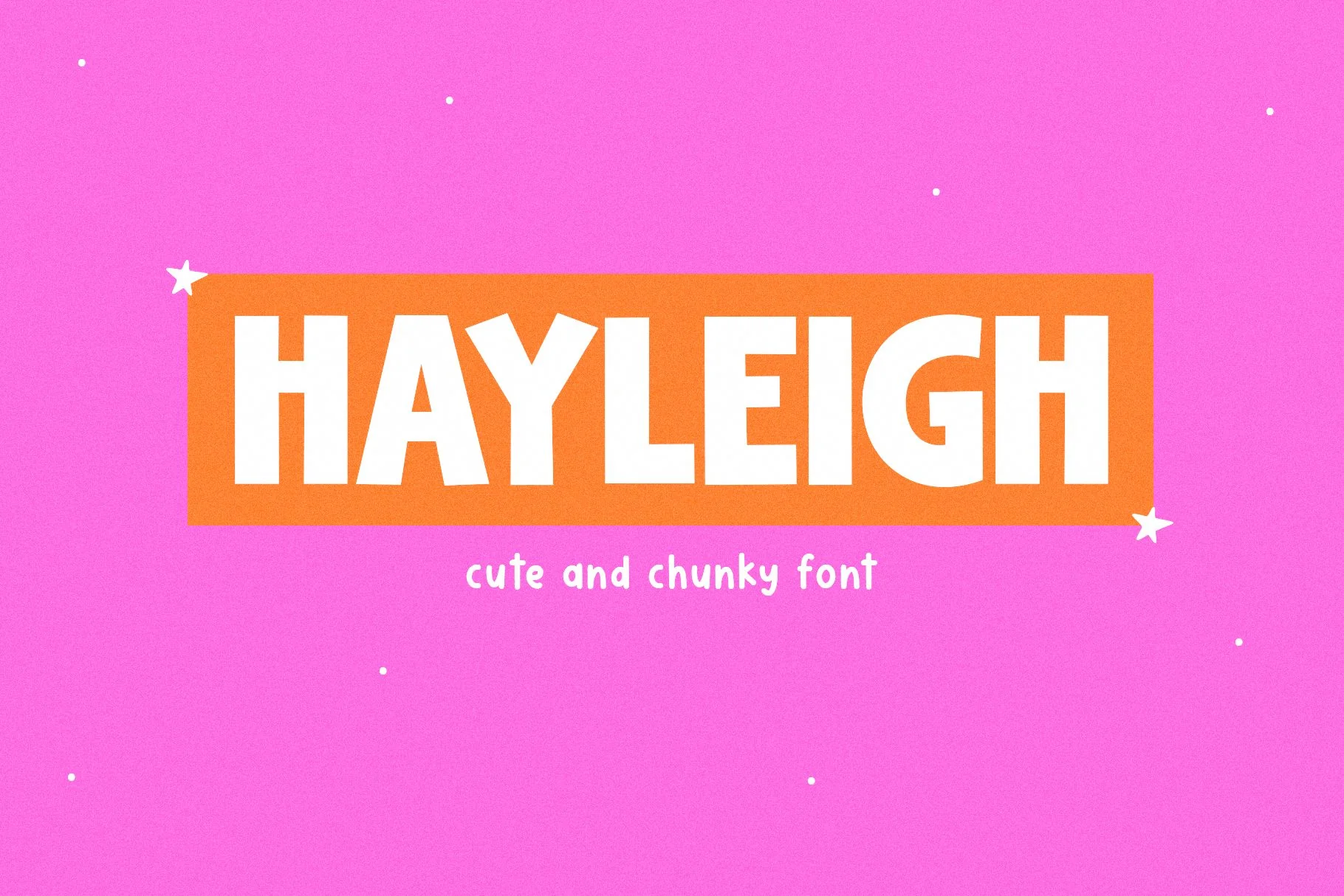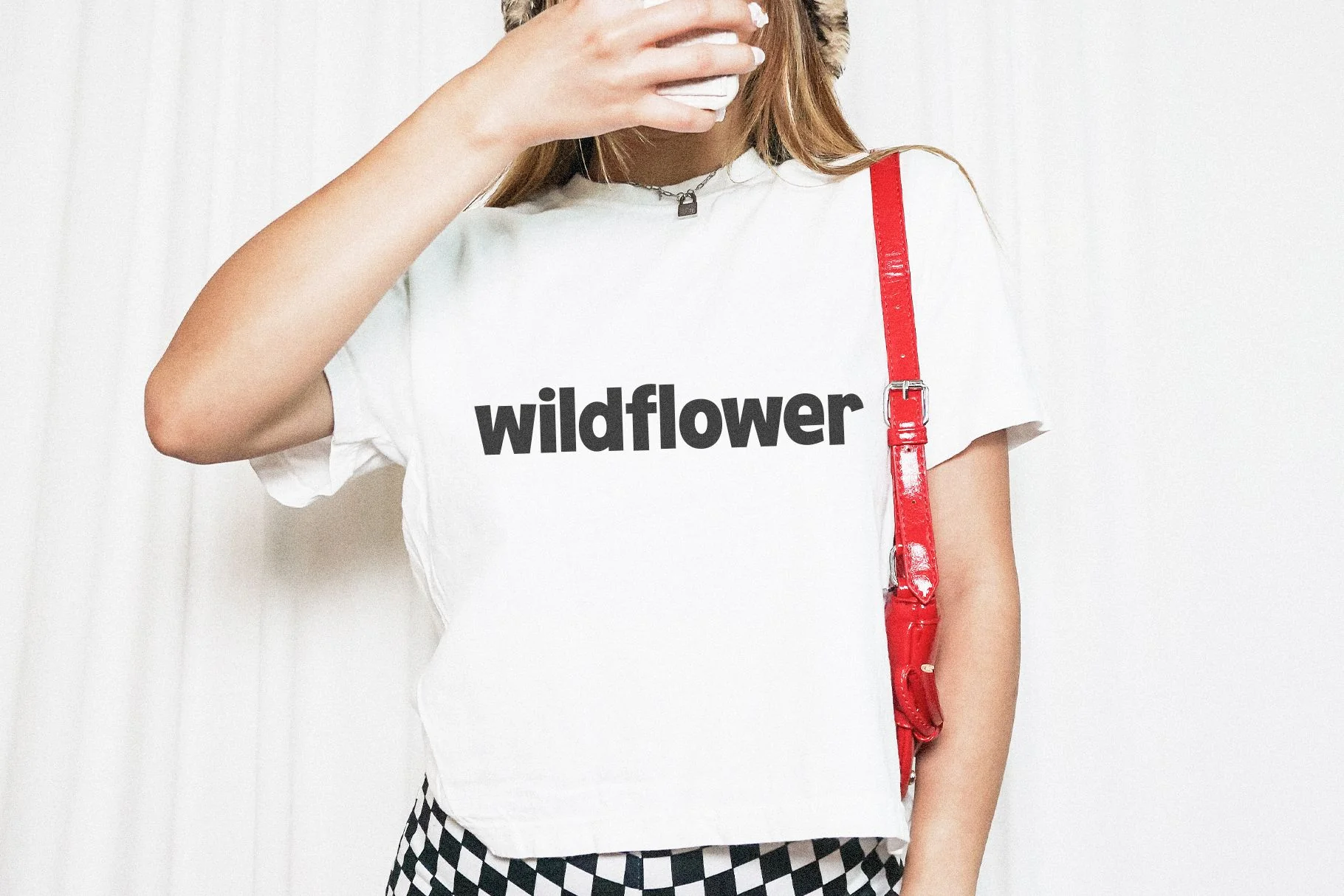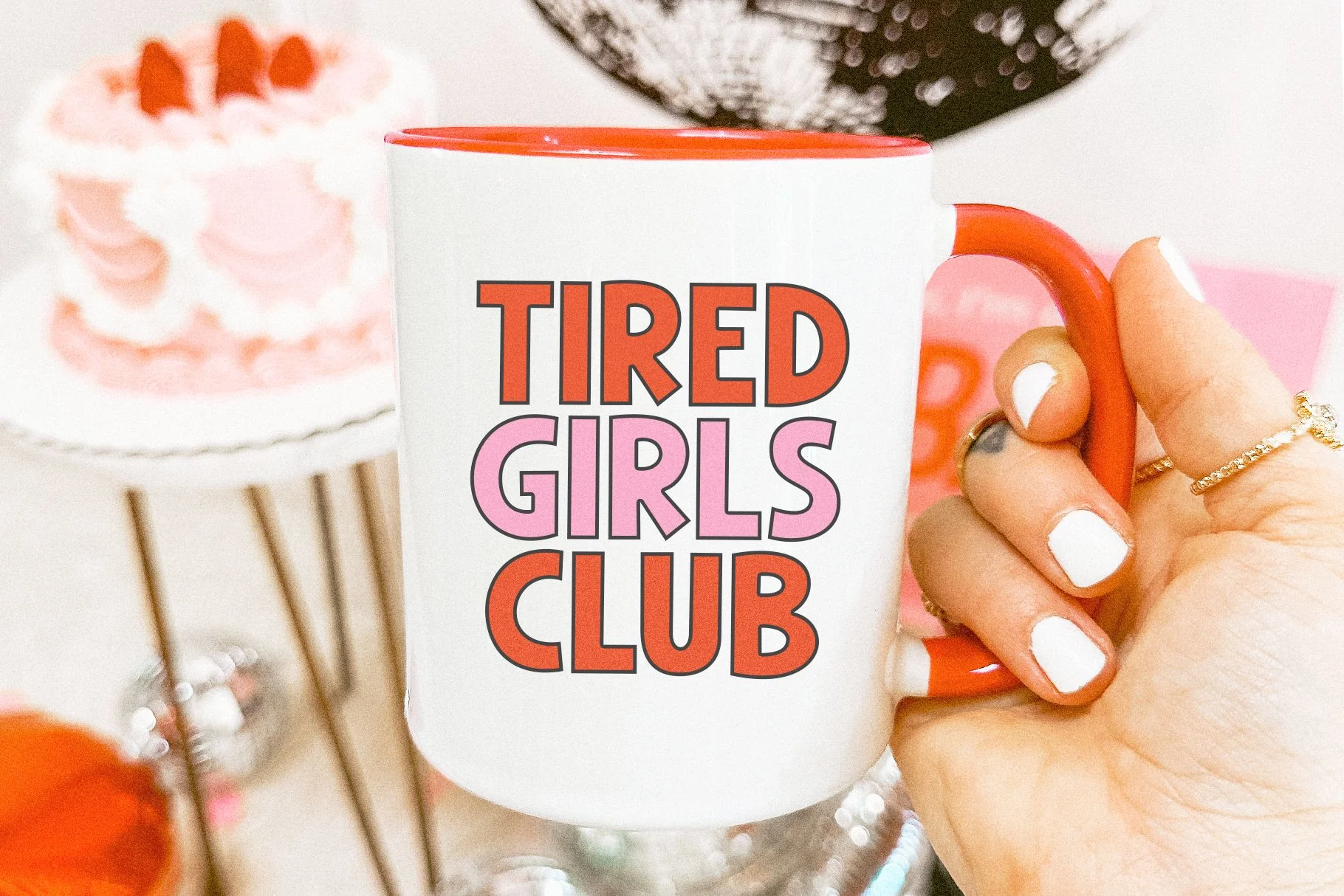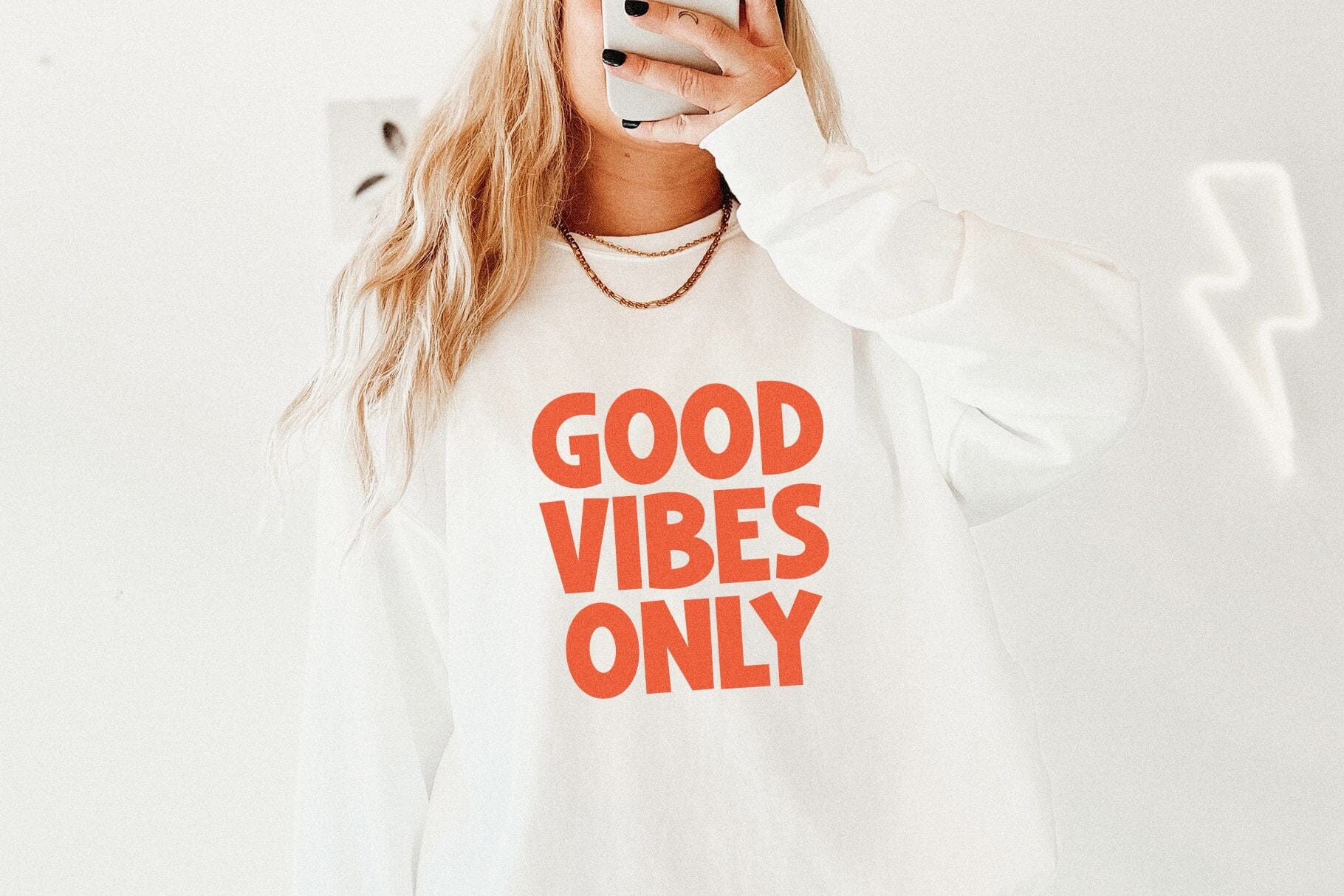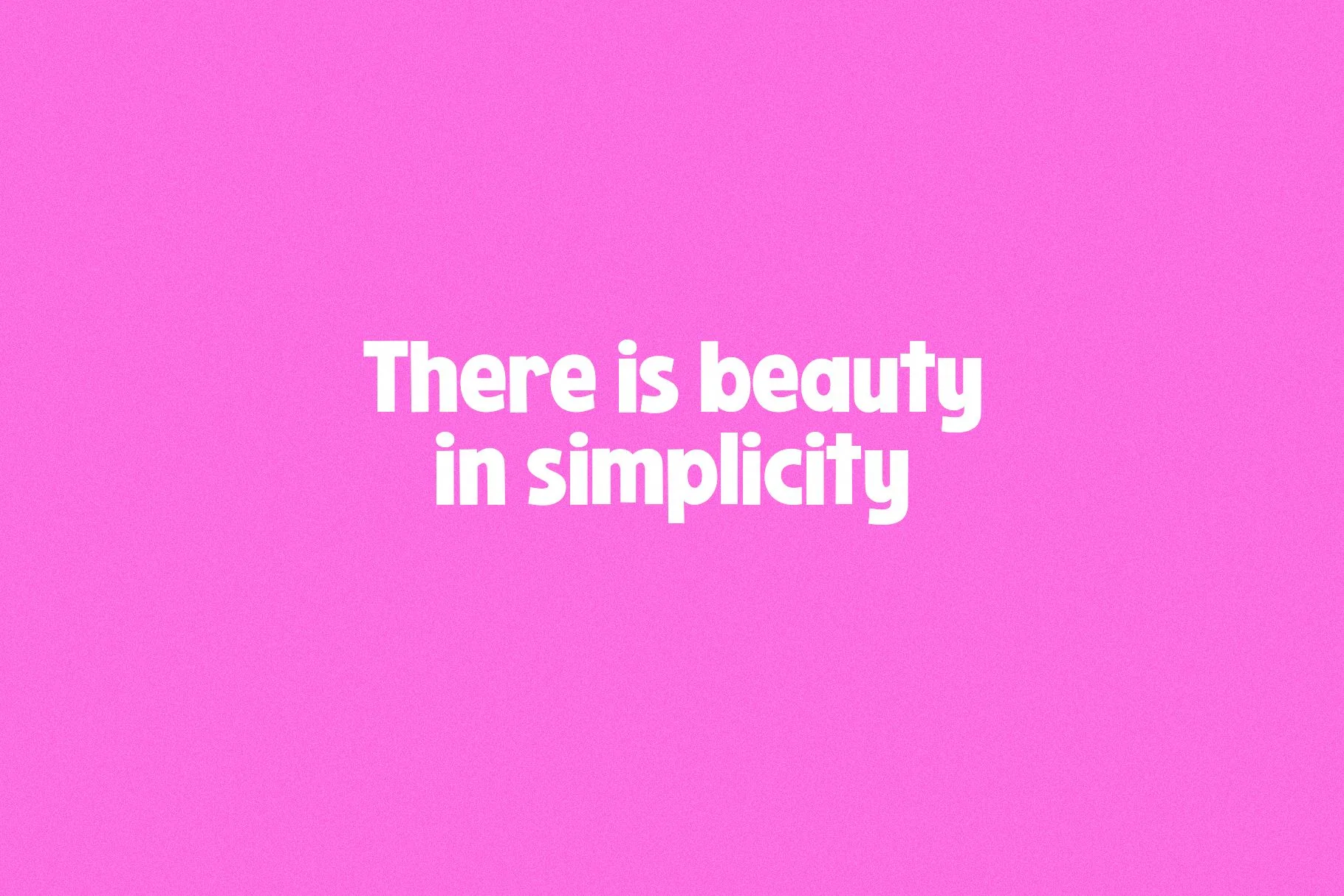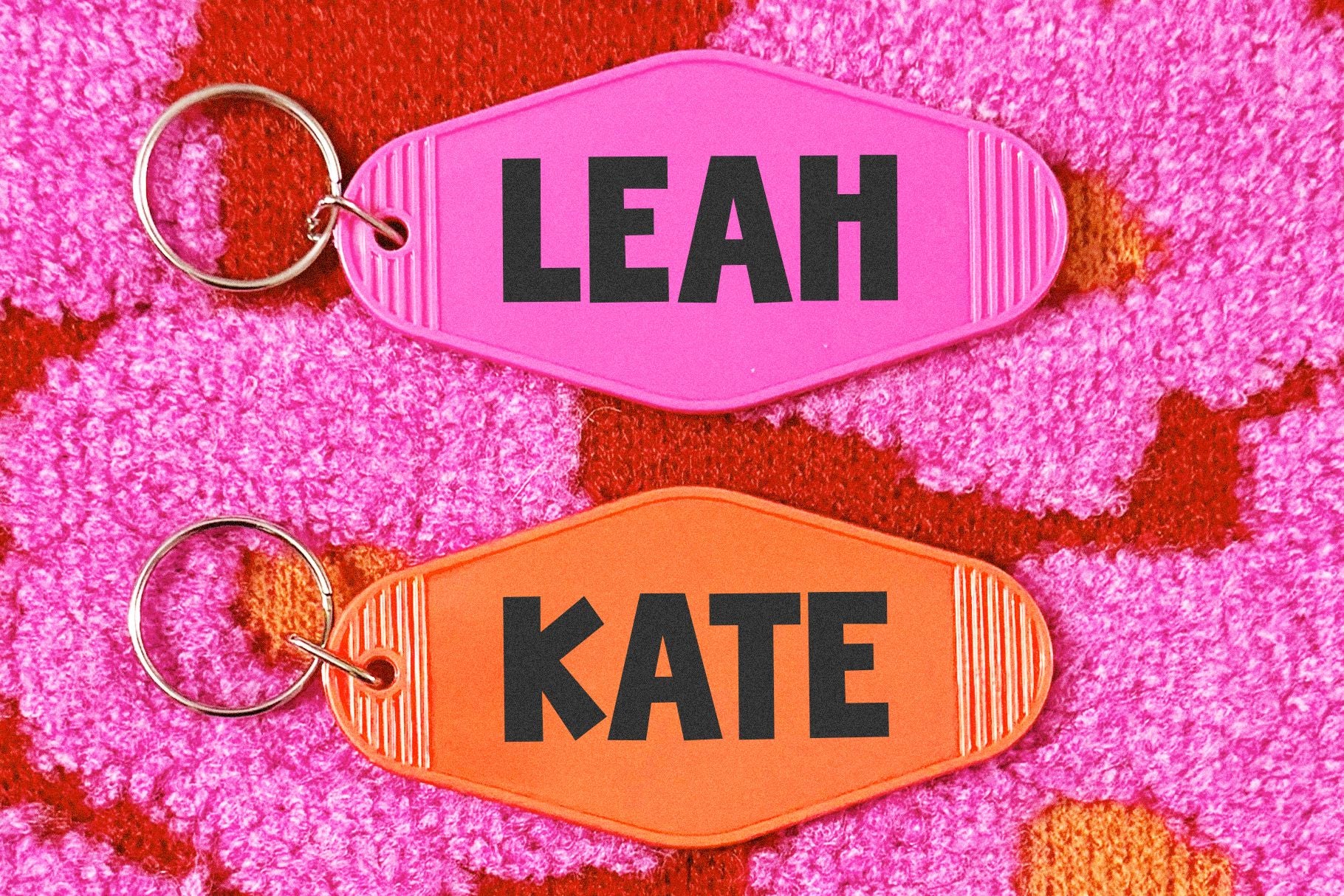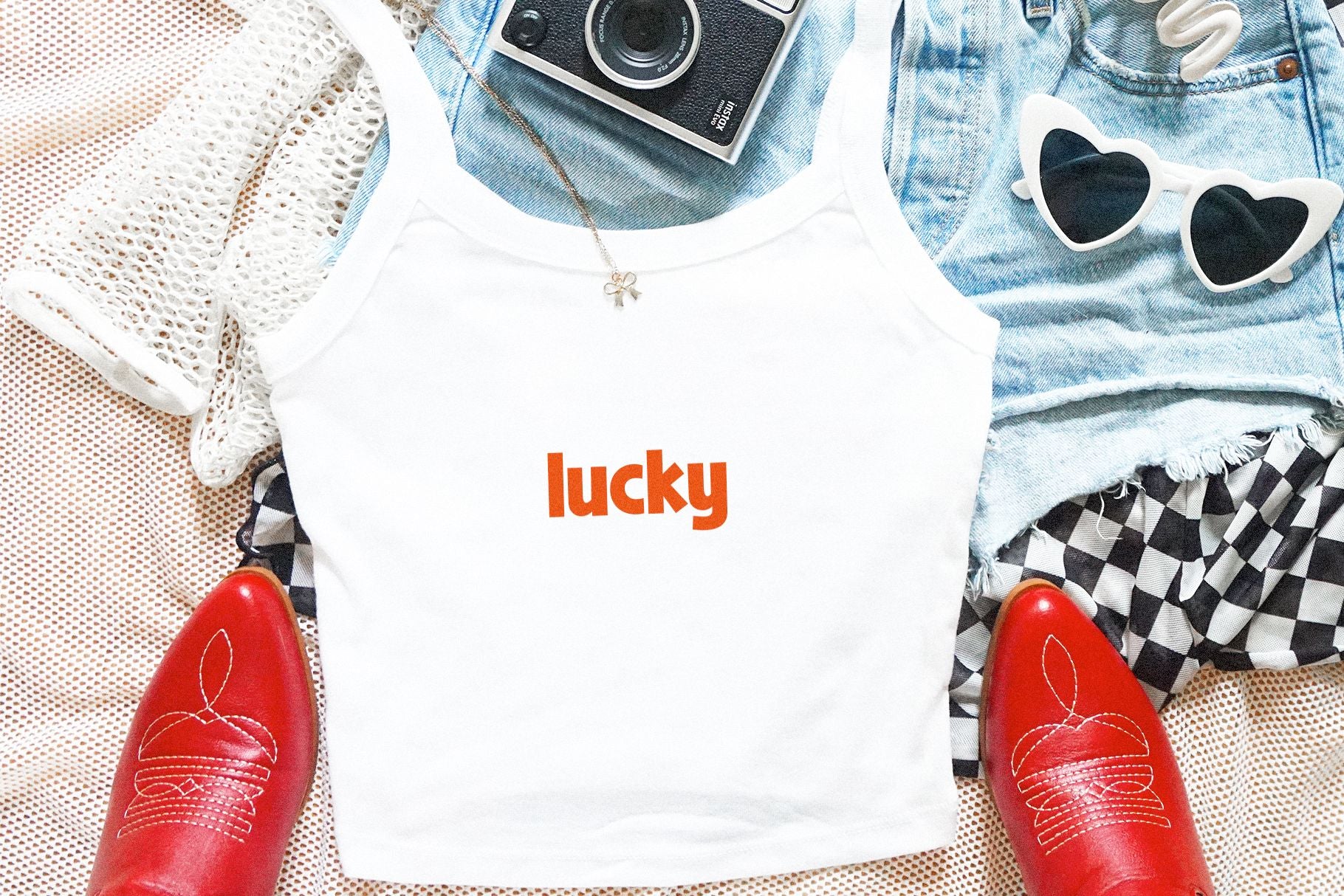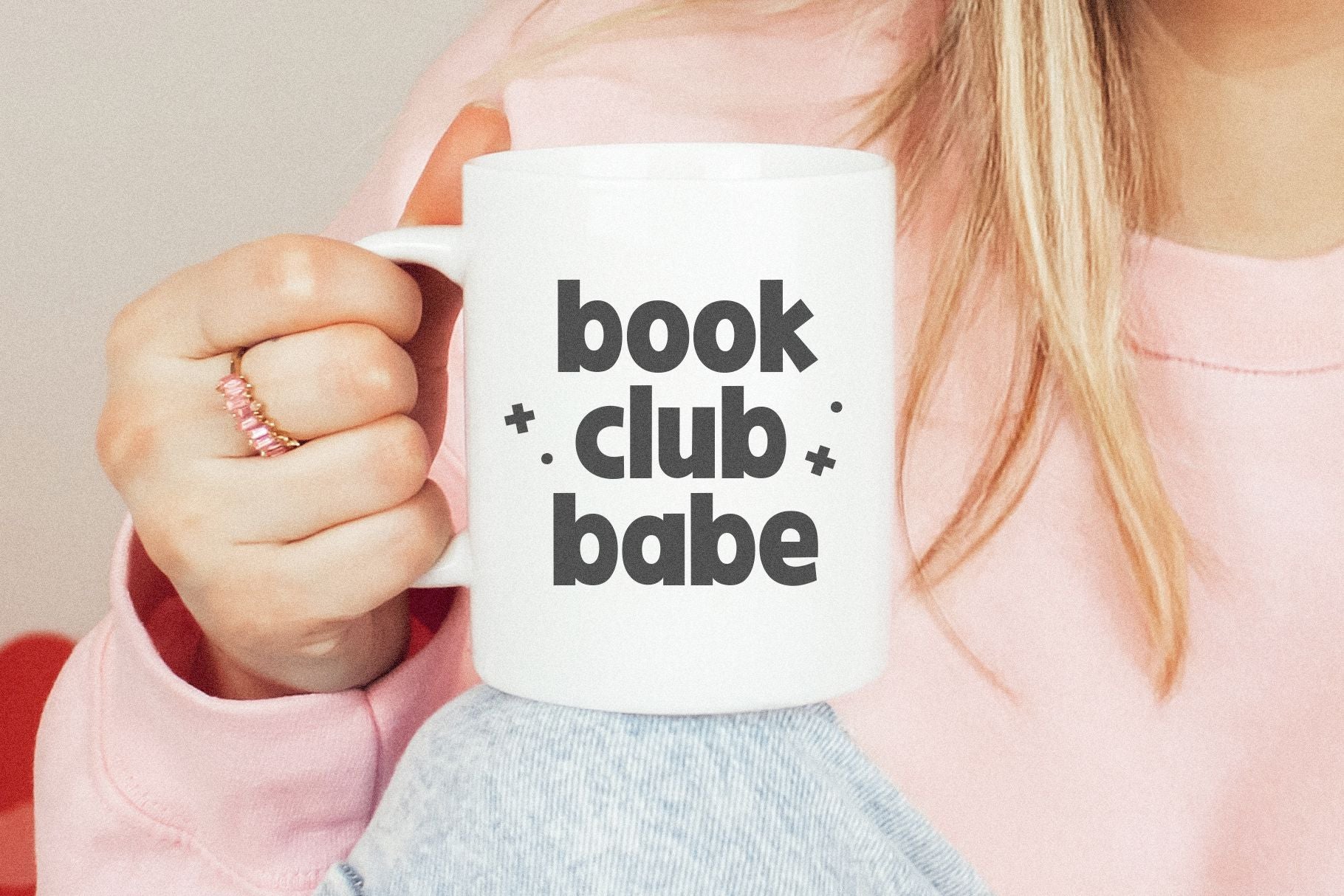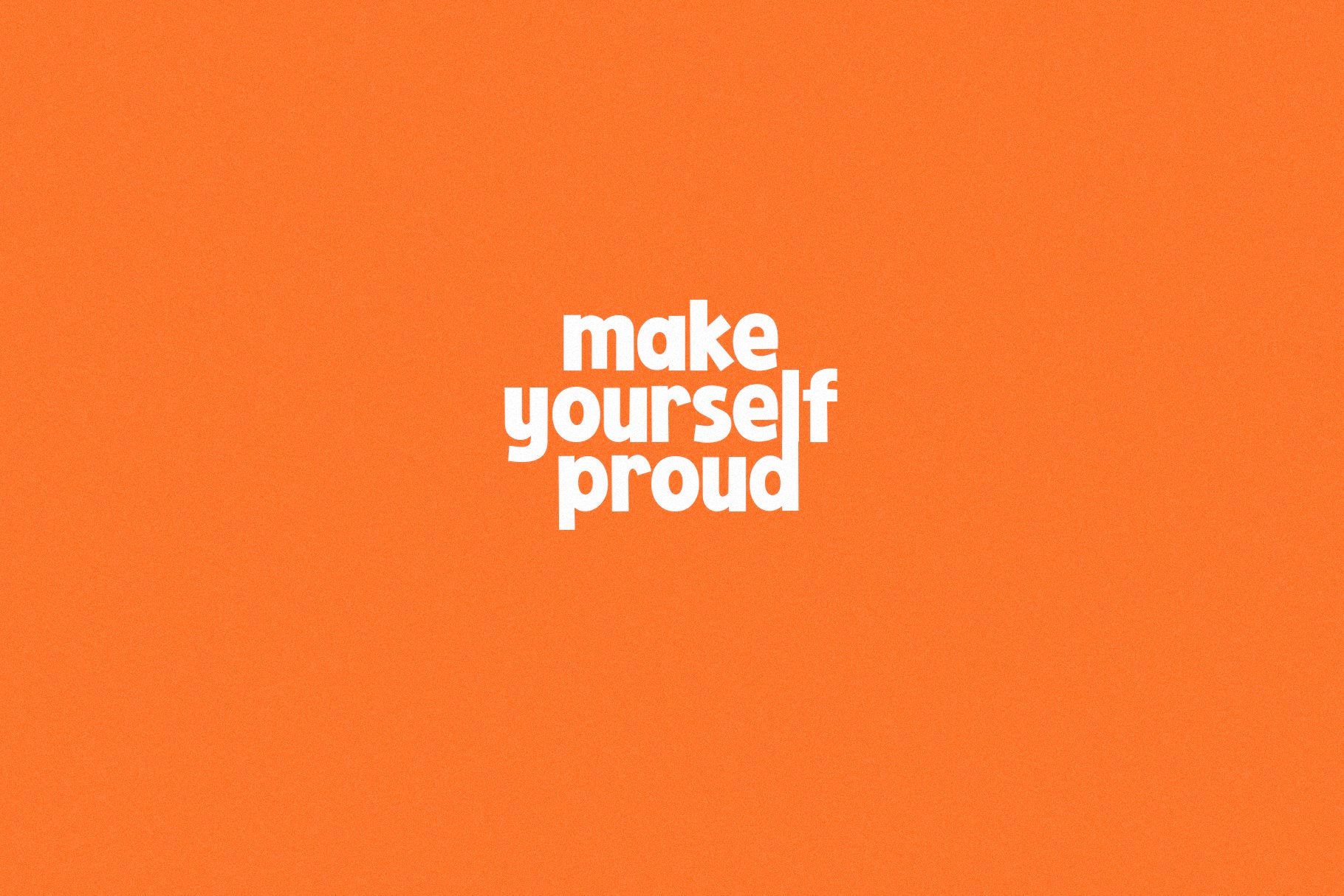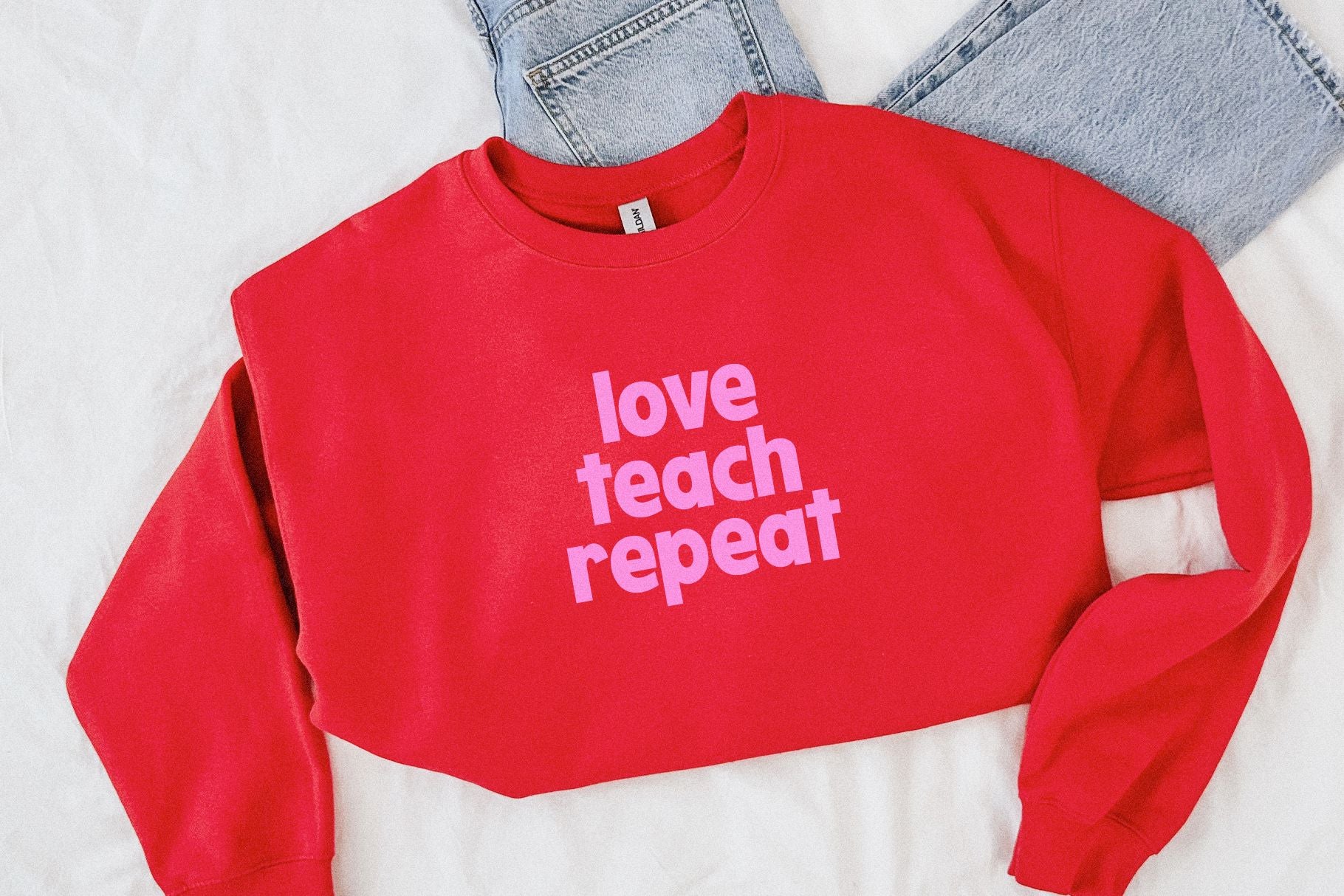
Hayleigh - Cute and Chunky Font
Hayleigh is a cute and chunky font.
This font is perfect for cricut projects, logos, shirts, svg files, planners, stickers, quotes, social media and more!
Hayleigh is a cute and chunky font.
This font is perfect for cricut projects, logos, shirts, svg files, planners, stickers, quotes, social media and more!